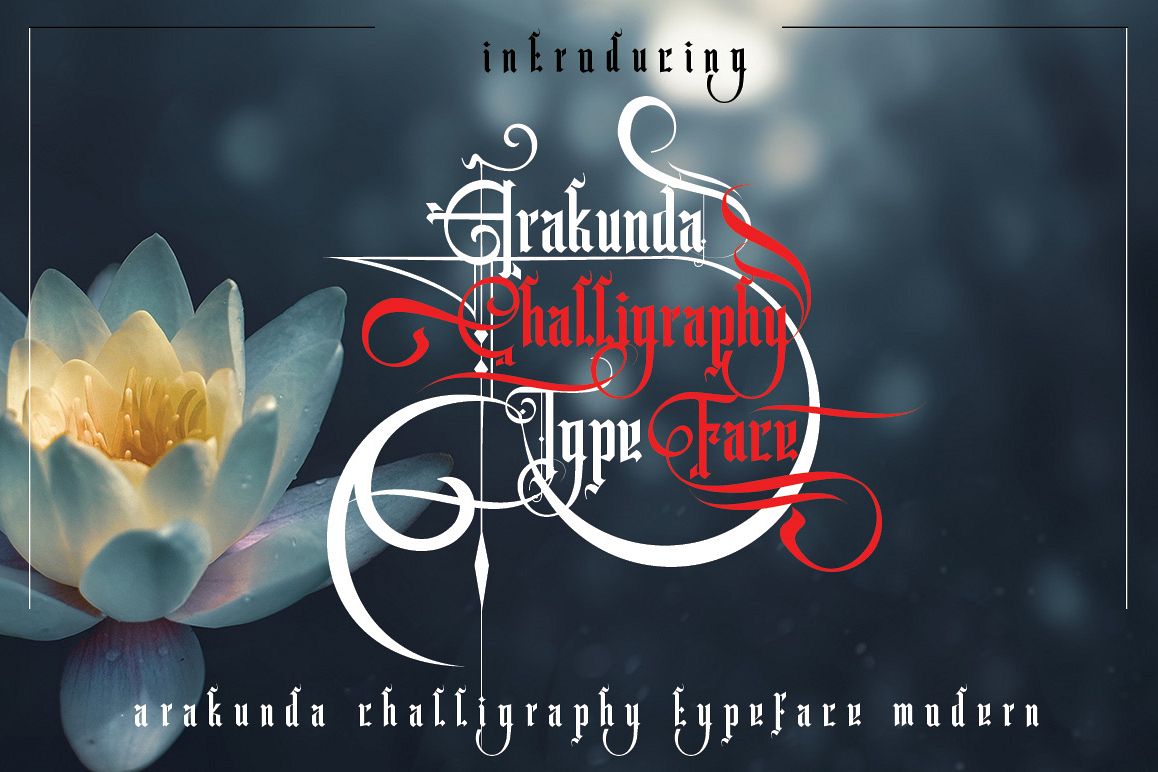
Arakunda Challiraphy
Arakunda Challiraphy This font was designed by handwriting, and it has a modern
and unique forms of calligraphy, the writing style is very natural and multiple
language support.
Languages supported: Breton, Catalan, Czech,
Danish, Estonian,French, German, Hungarian, Icelandic, Italian, Romanian,
Scottish Gaelic, Slovak, Latvian, Lithuanian, Norwegian, English, Finnish,
Polish, Portuguese, Slovenian, Spanish, Swedish, Turkish, Welsh. Basically, all
european languages that are based on latin alphabet.
And Alternate set